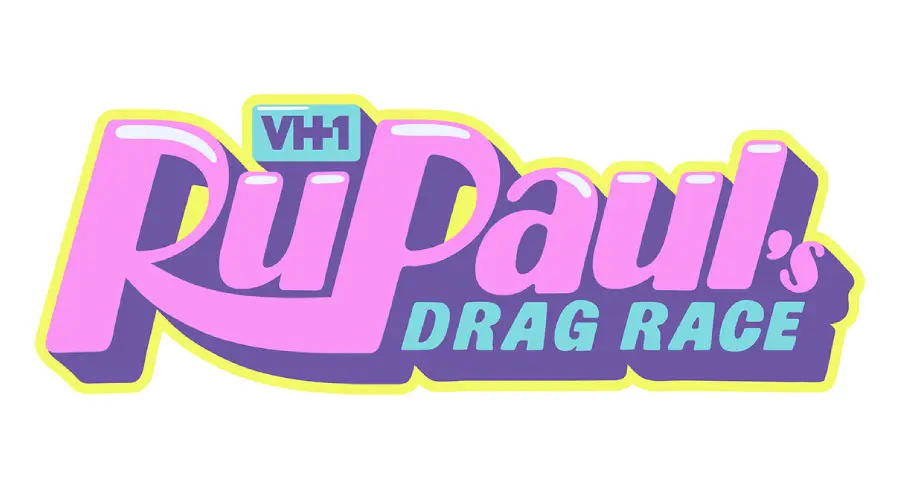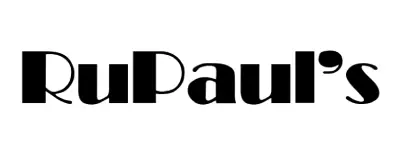
The RuPaul’s Drag Race Font is a distinctive typographic style used in the branding and logo of the popular reality competition show, RuPaul’s Drag Race. The show, which premiered in 2009 on VH1, features drag queens competing in various challenges to win the title of America’s next drag superstar. The font used in the show’s logo and promotional materials plays a significant role in its bold and glamorous aesthetic.
Broadway by Bitstream: This font is used for the “RuPaul’s” part of the logo. It features a classic Art Deco style with thick, geometric letterforms, perfectly capturing the show’s retro yet modern vibe.
Helvetica Neue Extra Black Condensed by Linotype: This font is used for the “Drag Race” part of the logo. It is a bold, condensed sans-serif font that complements the Broadway font, adding a sleek and contemporary touch.